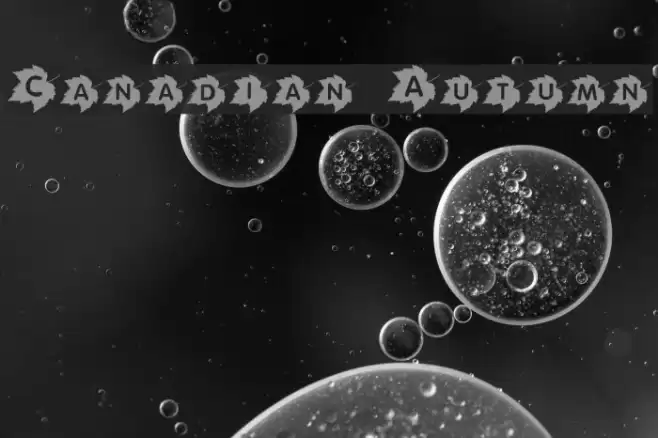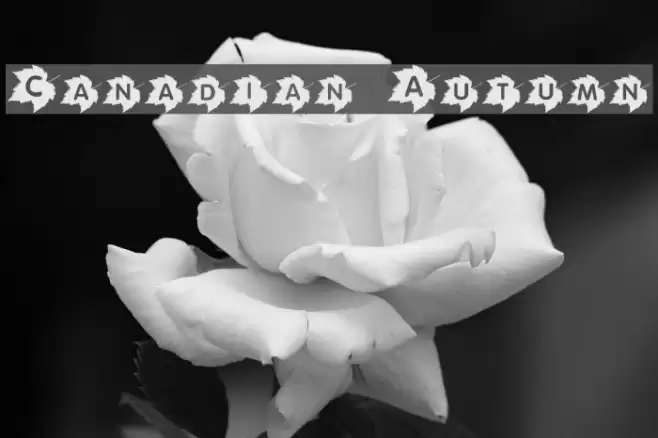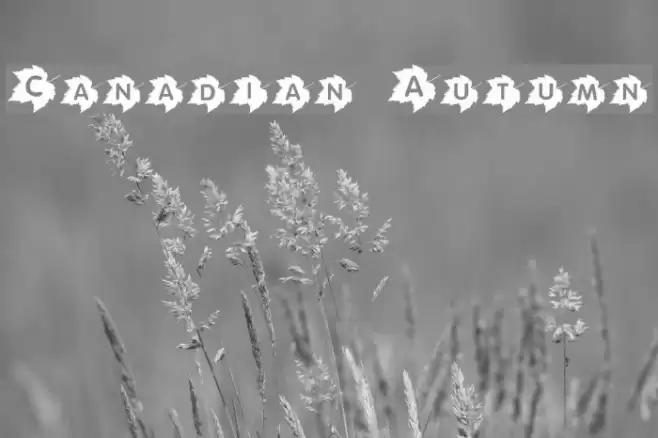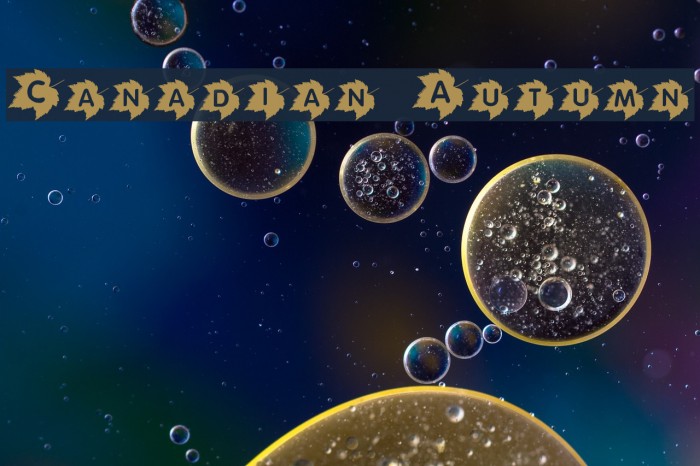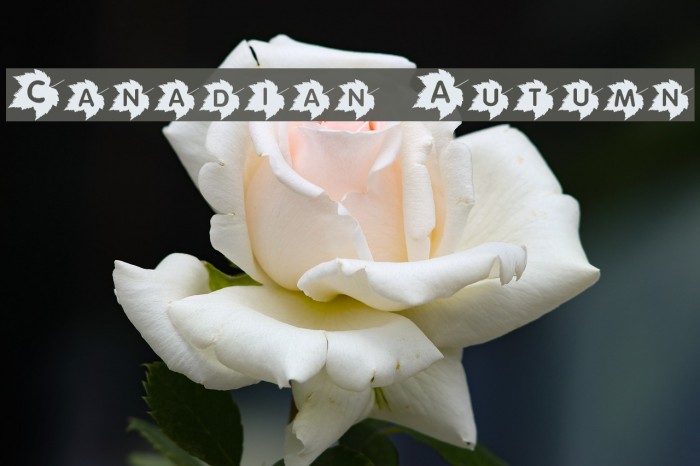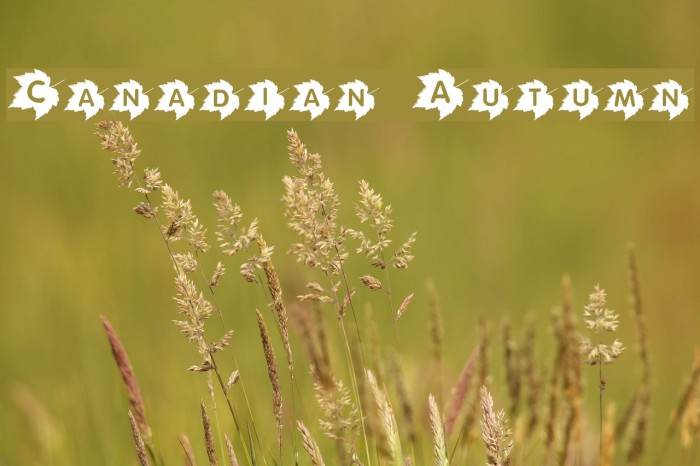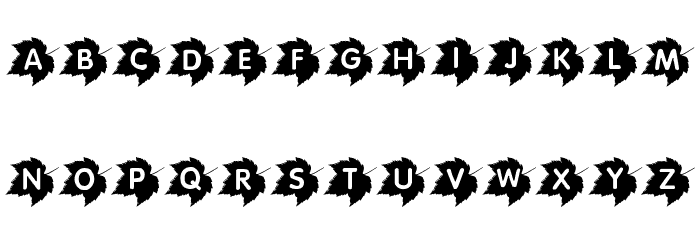
Canadian Autumn
This font features bold, uppercase letters embedded within stylized maple leaves, creating a distinctive and thematic appearance. The design is highly decorative, with each character set against a contrasting leaf silhouette, emphasizing the autumnal theme. The letters are serif, adding a touch of classic elegance to the otherwise playful and seasonal design. The font does not include lowercase letters, numbers, or special characters, focusing solely on the uppercase alphabet. This unique style is perfect for projects that require a strong visual impact and a connection to autumn or Canadian themes.
A decorative serif font with uppercase letters inside maple leaves, ideal for autumn-themed designs.
- Proposed Projects: Ideal for seasonal posters, themed invitations, branding for autumn events, or any project celebrating Canadian culture.
- Contrast: High
- Overall Style: Decorative